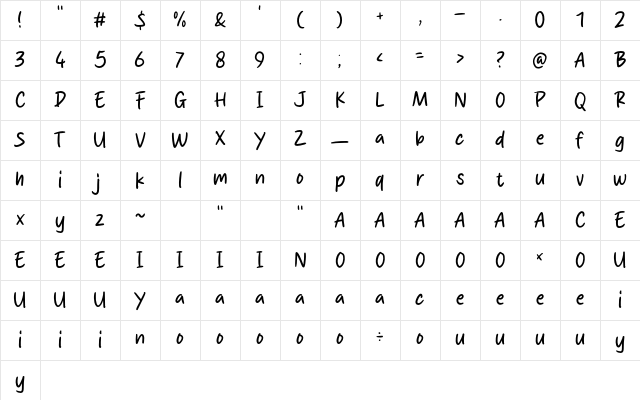
Apple Hut Regular Free Font
Apple Hut Regular
Design Context for Apple Hut
Apple Hut is a composed and adaptable typeface that performs quietly and consistently across a wide range of design contexts.